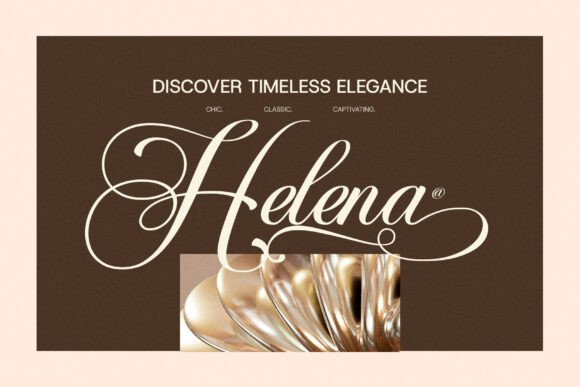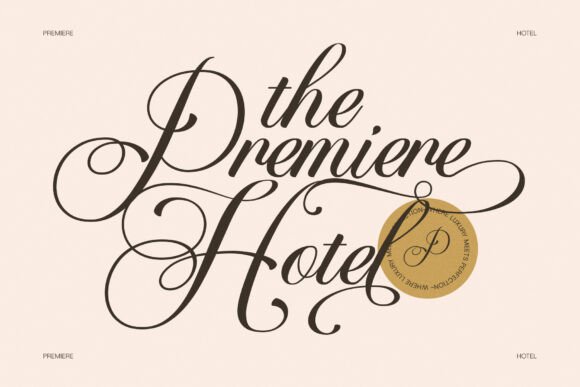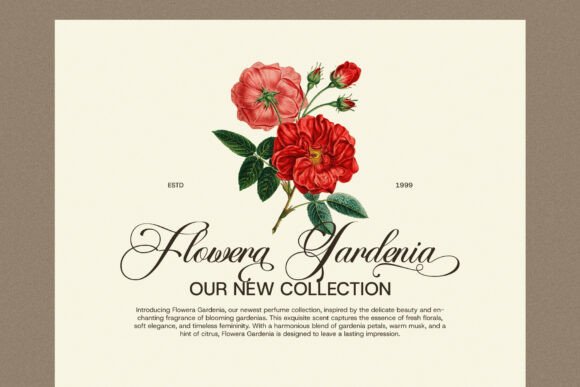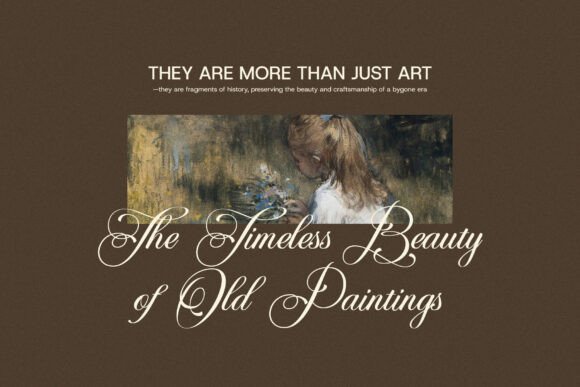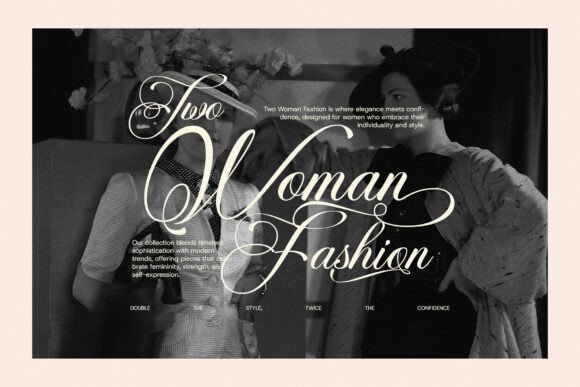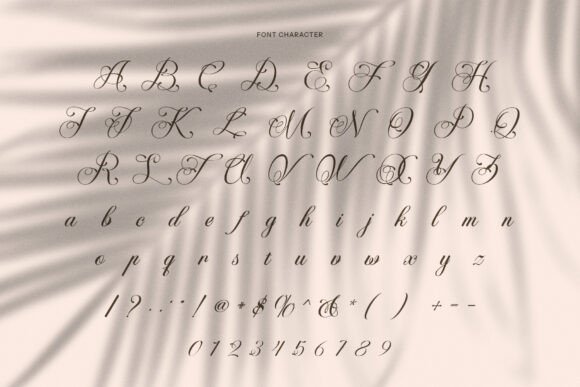
Bathsaida Font: Elevate Your Designs with Timeless Elegance
In the world of typography, few fonts manage to convey the essence of luxury and sophistication as effortlessly as Bathsaida Calligraphy Script Font. This exquisite typeface is a masterclass in elegance, designed to bring a touch of refinement and artistry to any project. With its flowing strokes, refined details, and stylish flourishes, Bathsaida is the perfect choice for designers and crafters looking to add a high-end feel to their work.
The Art of Elegance: Bathsaida’s Design
Bathsaida Calligraphy Script Font is a beautifully crafted typeface that embodies the principles of classic calligraphy. Its smooth curves and flowing strokes create a sense of movement and fluidity, while its refined details add a level of sophistication that’s hard to match. This font is designed to evoke the feeling of handcrafted luxury, making it perfect for projects that require a personal touch.
Endless Creativity: Alternates and Swashes
One of the standout features of Bathsaida is its rich collection of alternates and swashes. This allows designers to experiment with different variations, creating unique and customized designs that reflect their brand’s personality. With Bathsaida, the possibilities are endless, making it an ideal choice for branding, logos, and high-end packaging.
Bathsaida Calligraphy Script Font is a versatile typeface that can be used in a wide range of projects. Whether you’re designing a wedding invitation, crafting a signature-style logo, or creating stylish social media content, Bathsaida enhances your work with a natural yet polished aesthetic. Its carefully crafted letterforms ensure readability while maintaining the charm of authentic calligraphy.
Ideal Applications for Bathsaida
Bathsaida is particularly well-suited for projects that require a touch of luxury and sophistication. Some ideal applications for this font include:
- Wedding stationery: Bathsaida’s elegant design makes it perfect for wedding invitations, save-the-dates, and other wedding-related materials.
- Album covers: The font’s sophisticated look and feel make it an excellent choice for music album covers, photography albums, and other creative projects.
- Luxury product packaging: Bathsaida’s high-end aesthetic makes it perfect for luxury product packaging, adding a touch of sophistication to any product.
- Editorial layouts: The font’s readability and elegance make it an excellent choice for editorial layouts, including magazines, newspapers, and online publications.
- Business cards: Bathsaida’s refined design makes it perfect for business cards, adding a touch of professionalism and sophistication to any business.
- Elegant website headers: The font’s smooth curves and stylish flourishes make it an excellent choice for website headers, adding a touch of luxury to any website.
The Benefits of Using Bathsaida
There are many benefits to using Bathsaida Calligraphy Script Font in your designs. Some of the most significant advantages include:
- Timeless elegance: Bathsaida’s classic design ensures that your work will remain stylish and relevant for years to come.
- High-end aesthetic: The font’s sophisticated look and feel add a touch of luxury to any project.
- Endless creativity: Bathsaida’s alternates and swashes allow for endless experimentation and customization.
- Readability: The font’s carefully crafted letterforms ensure readability while maintaining the charm of authentic calligraphy.
In conclusion, Bathsaida Calligraphy Script Font is a sophisticated and elegant typeface that’s perfect for designers and crafters looking to add a touch of luxury to their work. With its flowing strokes, refined details, and stylish flourishes, Bathsaida is the perfect choice for a wide range of projects, from wedding stationery to luxury product packaging. Its combination of timeless elegance, high-end aesthetic, and endless creativity make it an excellent addition to any designer’s toolkit.